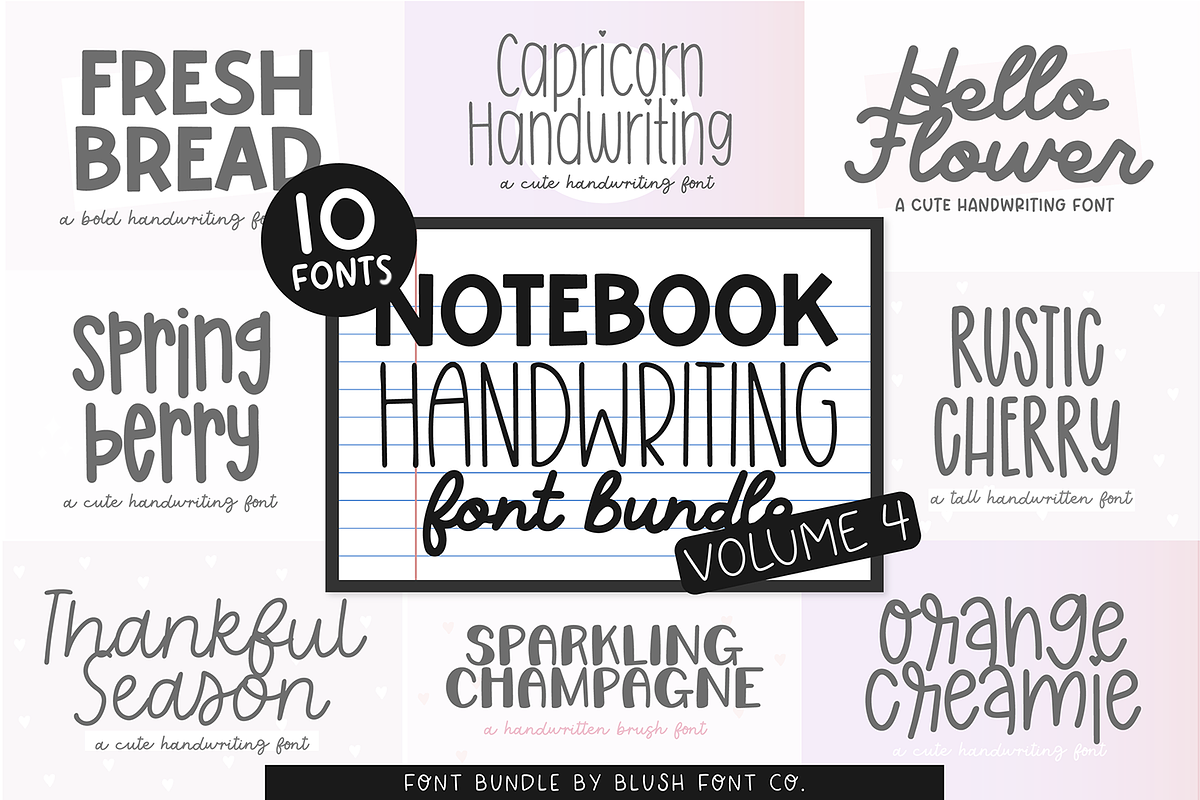
Notebook Handwriting Bundle Vol 4 Free Download is a delightful collection of handwritten fonts inspired by real notebook doodles, school notes, and casual penmanship. This bundle is perfect for creatives who want to add a personal, playful, and authentic vibe to their projects. Ideal for planners, printables, educational materials, kids’ designs, and social media content, these fonts bring a handwritten charm that feels warm and familiar.
Each font in this bundle offers its own unique personality—ranging from neat and tidy to quirky and expressive. With multiple styles included, you’ll have endless options to mix and match for headlines, quotes, and custom typography.